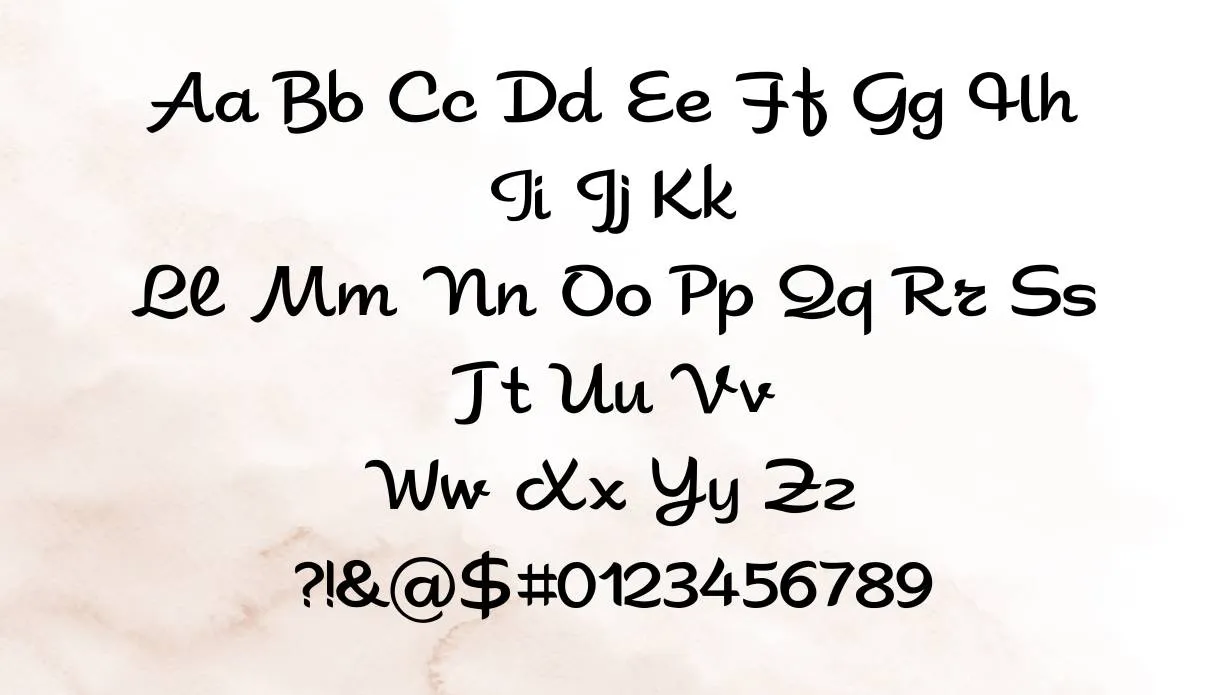
Sahara Font exudes warmth and a touch of the exotic. It’s an excellent choice for projects that require a friendly and inviting font, such as travel brochures or cultural events. This font is designed by Mario Arturo and it is a Script font.
The font encompasses a variety of characters, including uppercase and lowercase letters, numerals, punctuation, and special characters. The distinctive texture of this typeface appeals to creators, making it highly sought after.